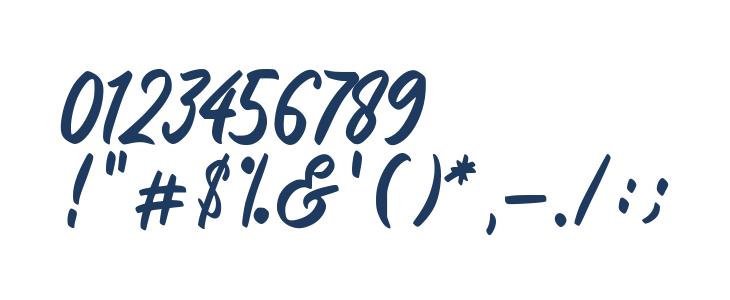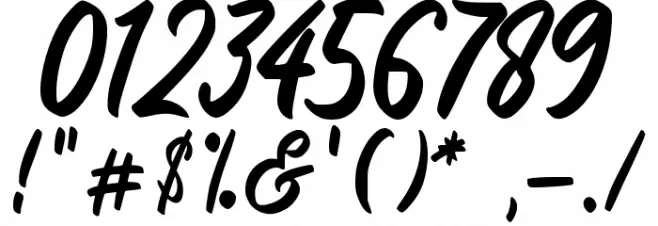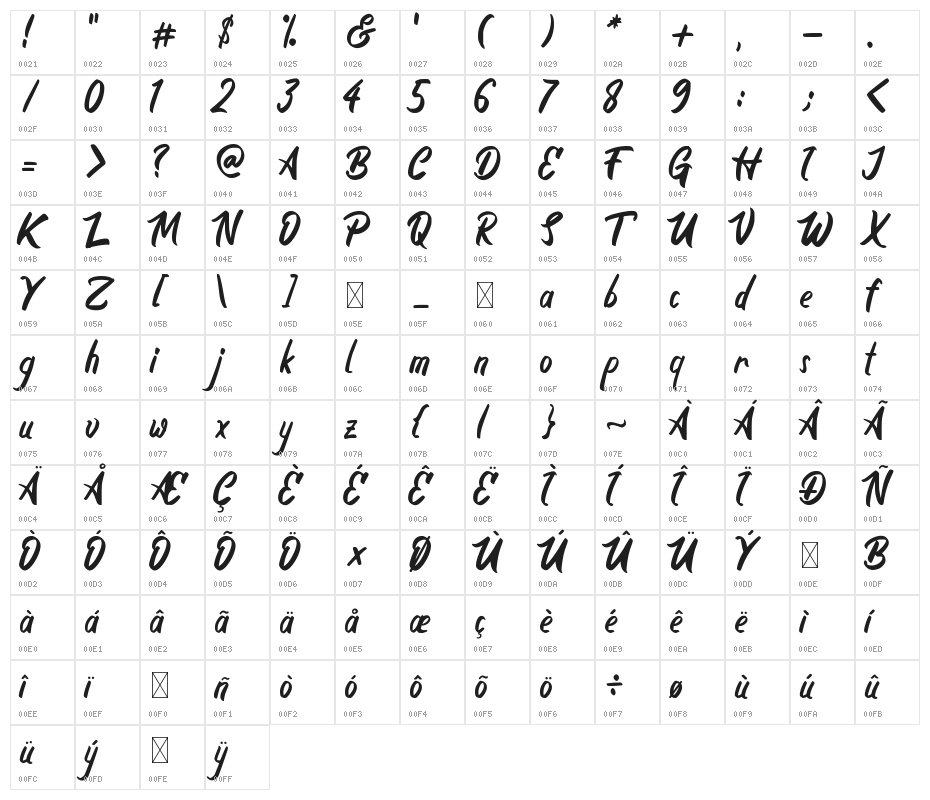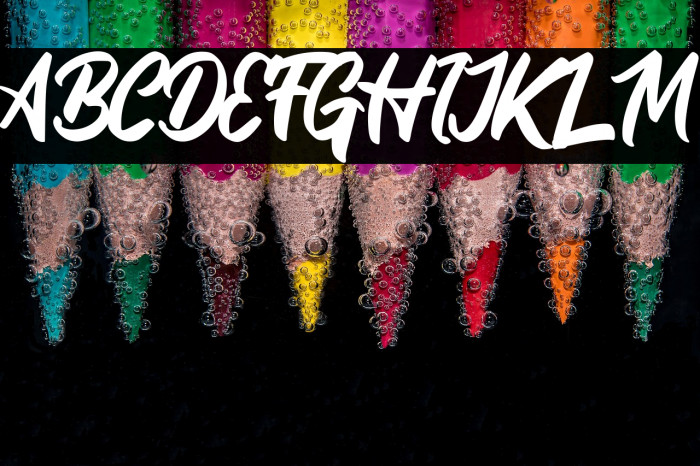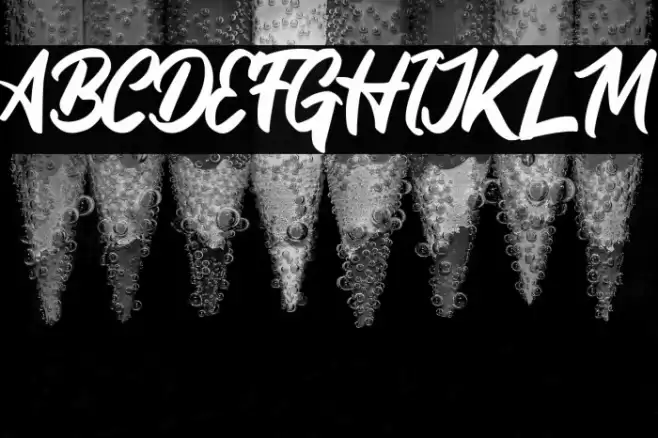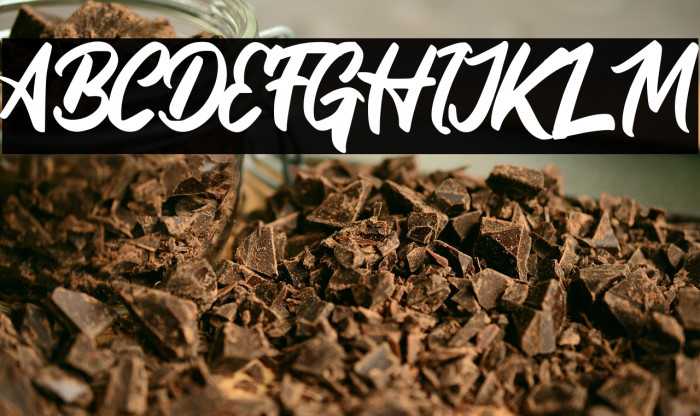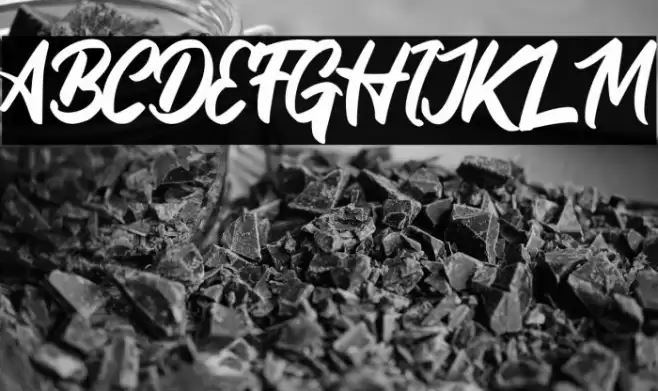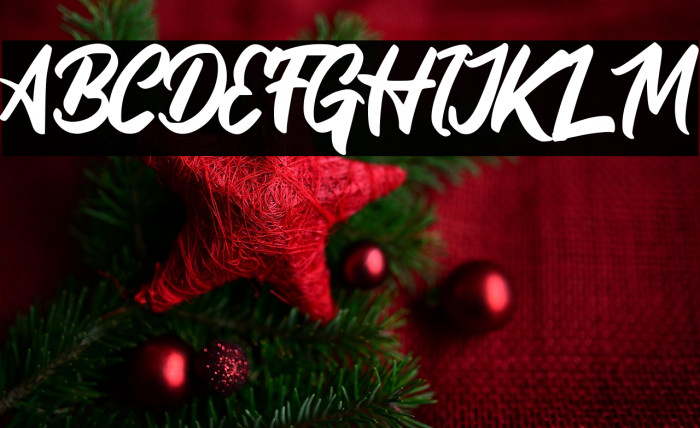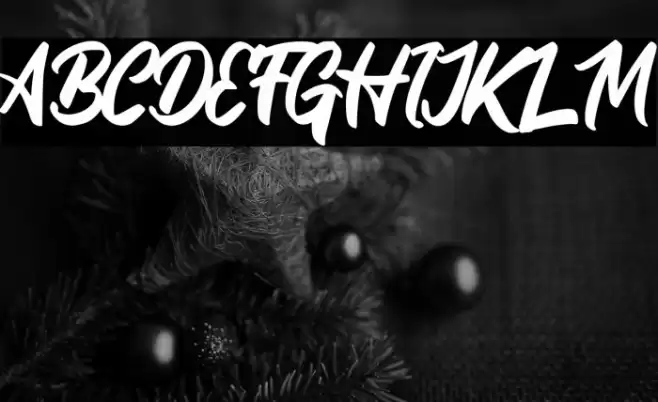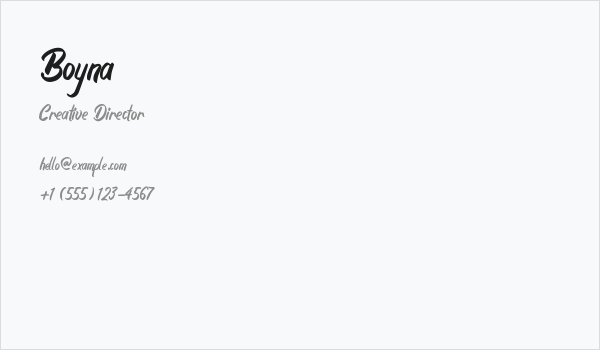
Boyna Font
Boyna Description
This font features a bold, energetic script style with a dynamic flow and a sense of movement. The characters are interconnected, giving it a handwritten appearance that is both casual and expressive. The strokes are thick and consistent, providing a strong visual impact. The uppercase letters are slightly more angular, while the lowercase letters maintain a smooth, rounded form. The numbers and special characters follow the same lively style, ensuring uniformity across all elements. This font is ideal for projects that require a personal touch or a creative flair.
| Proposed Projects | Ideal for branding, logos, invitations, and creative posters. |